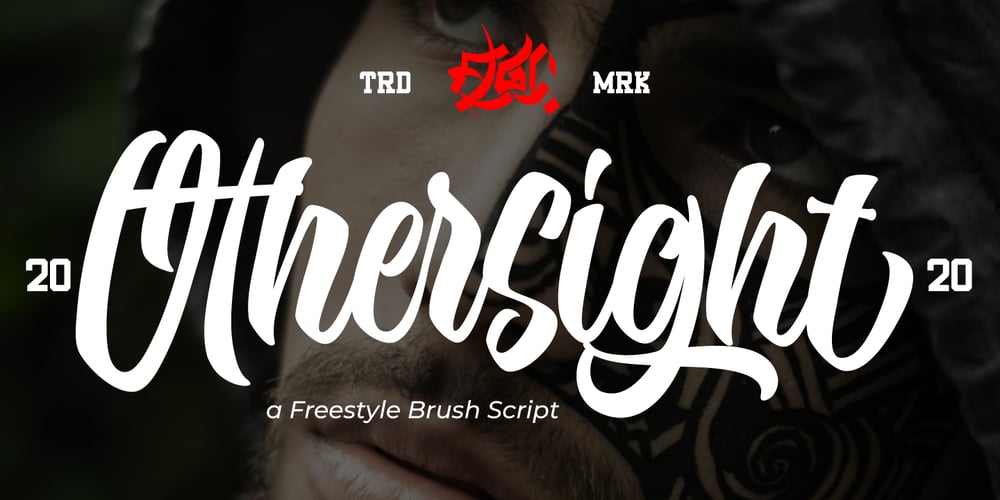
Othersight Script Font Family was designed by Vava Aryanto and published by FallenGraphic. Othersight Script contains 1 styles and family package options. Othersight Script is an amazing handwritten font. Made in natural handwriting, this font will make your design more beautiful and powerful. Othersight Script is suitable for any design like branding, quotes and more. Othersight Script contains: -Accents (Multilingual Characters) -PUA encoded -Numerals and Punctuations (OpenType Standard) -Many alternates I hope you enjoy it . Thanks for visiting and downloading my font.